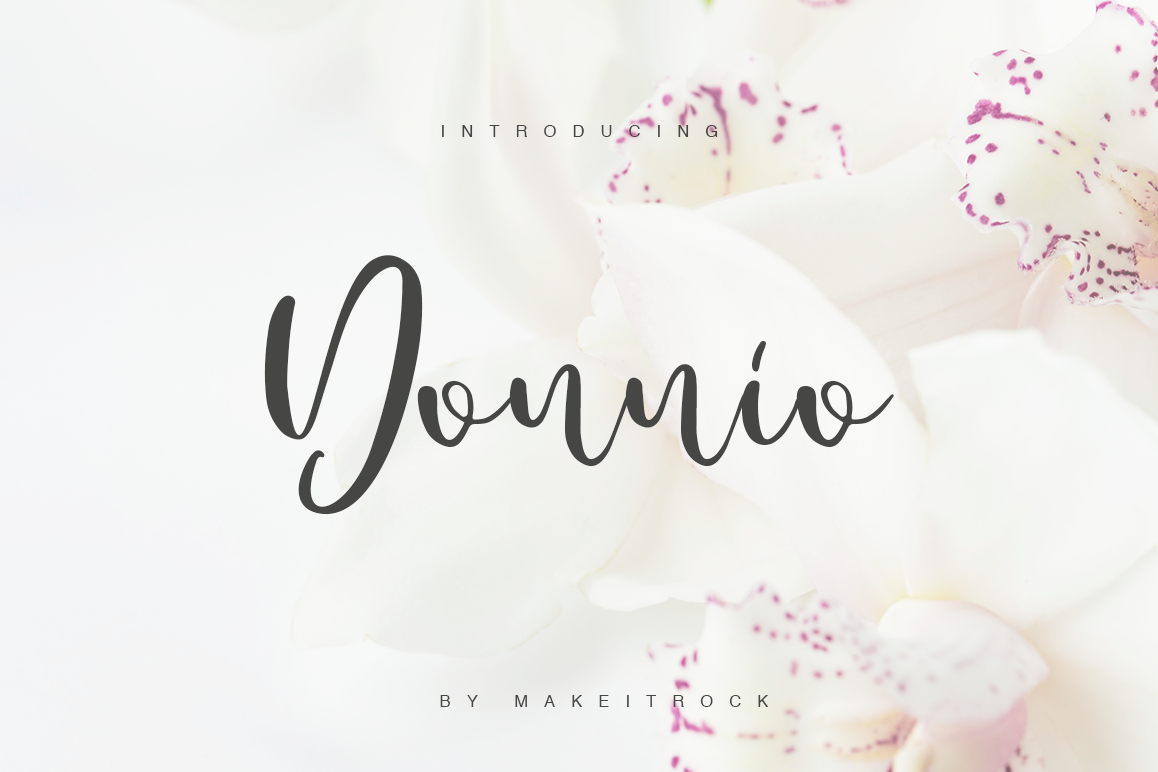
Donnio
Introducing the lovely new DONNIO Script Font!This handwritten script has been attentively written, with gentle curves to produce a font thats completely distinctive and original. Perfect for adding a elegant and unique touch to your lettering projects and branding.Also with their help, you can create a Wedding lettering or beautiful frame for your home. Or just use for your small business, book covers, stationery, marketing, magazines and more. Donnio font built with uppercase, lowercase, numeral, punctuation.
Donnio